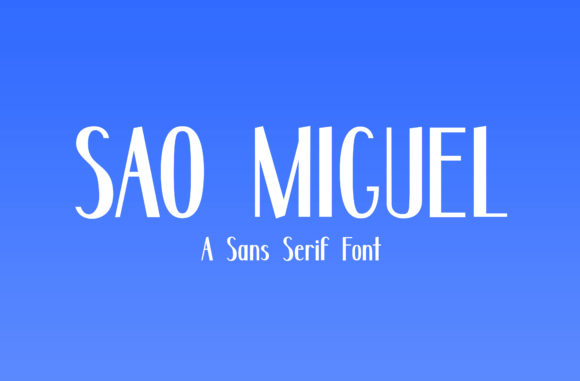
Sao Miguel Font
Journey to the heart of typography with Sao Miguel Font, a sans serif masterpiece that exudes a captivating blend of retro charm and modern elegance. Inspired by the vibrant streets and rich culture of the Azores, this remarkable font is a visual symphony that dances across your screen, leaving an indelible mark on your designs.
With its clean lines and irresistibly playful curves, Sao Miguel Font effortlessly captures the essence of nostalgia while embracing the spirit of innovation. Its meticulously crafted characters evoke a sense of timelessness, reminiscent of classic signage and vintage posters, yet its contemporary flair ensures it remains a timeless choice for modern designs.
Immerse yourself in the creative possibilities that await you with Sao Miguel Font. Its versatile nature makes it the perfect companion for a diverse range of projects, from eye-catching logos and branding to captivating web designs and social media posts. Its crisp, legible letterforms ensure your messages shine with clarity and impact, while its retro vibes add a touch of intrigue and personality that will set your designs apart.
Whether you're a seasoned designer seeking a font that sparks your imagination or a typography enthusiast looking to elevate your projects, Sao Miguel Font is your ultimate creative ally. Its user-friendly nature makes it accessible to designers of all levels, allowing you to effortlessly bring your design visions to life.
Embrace the beauty of nostalgia and the thrill of innovation with Sao Miguel Font. Let its timeless charm and modern elegance enhance your designs, leaving a lasting impression on your audience. Unleash your creativity and embark on a typographic journey like never before.